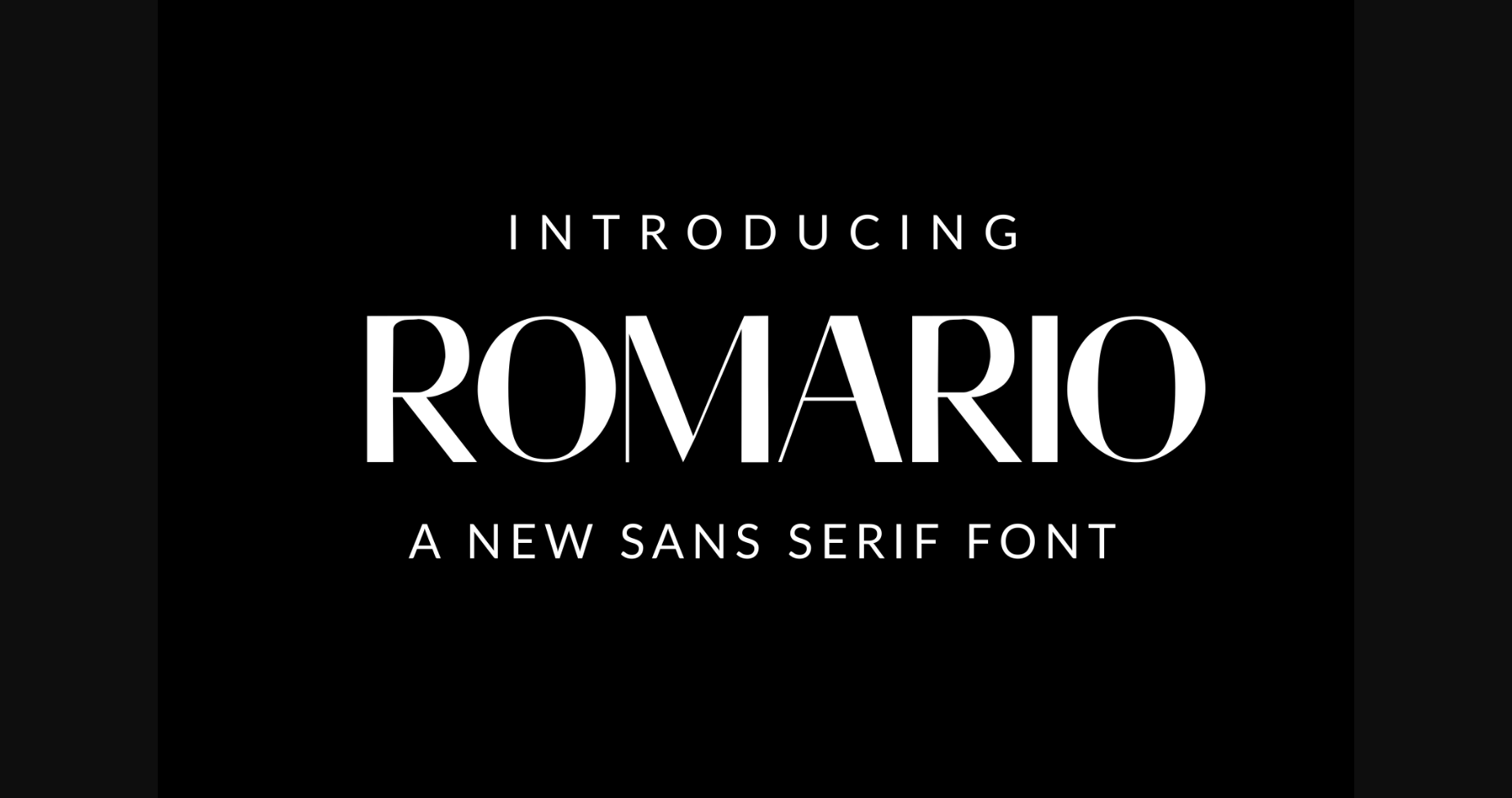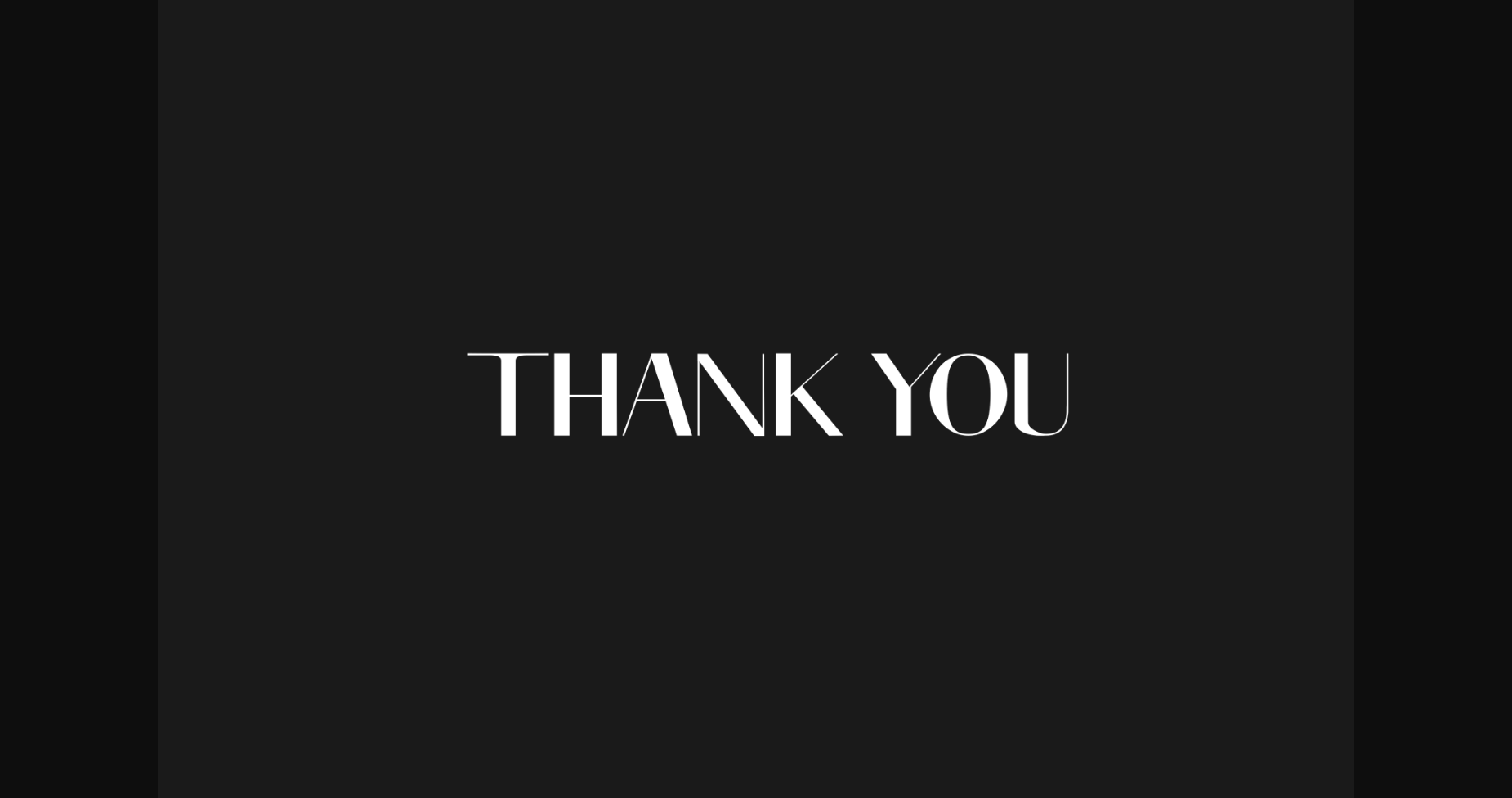
About Romario Font
Romario is a bold and authentic sans serif font. It can easily be matched to an incredibly large set of projects, so add it to your creative ideas and notice how it makes them stand out!